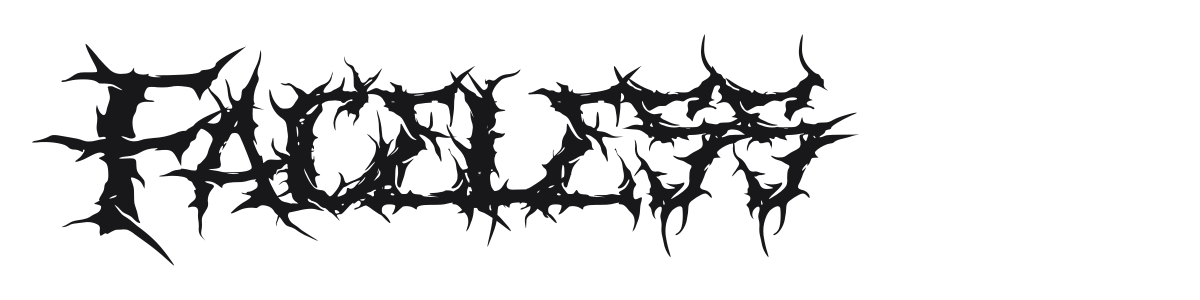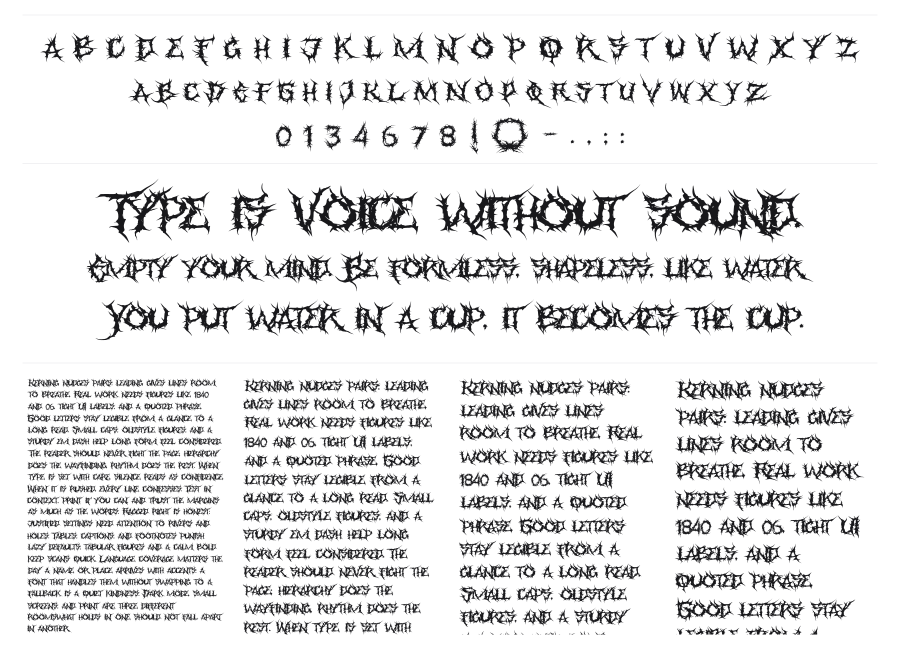
Faceless
Faceless is a death-metal display font covered in razor-sharp spikes and torn, eroded strokes that make each character look like it grew from barbed wire. The underlying letterforms are heavy and bold, but the jagged protrusions consume most of the counter space, pushing legibility to its limit in the best possible way. It belongs on band logos, horror posters, and anything that needs to look genuinely threatening.